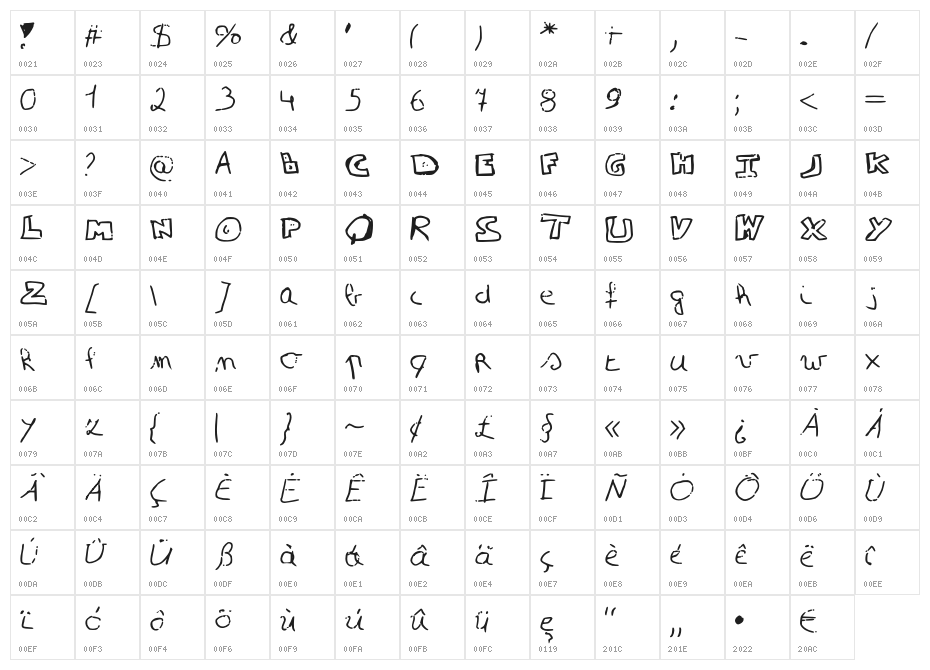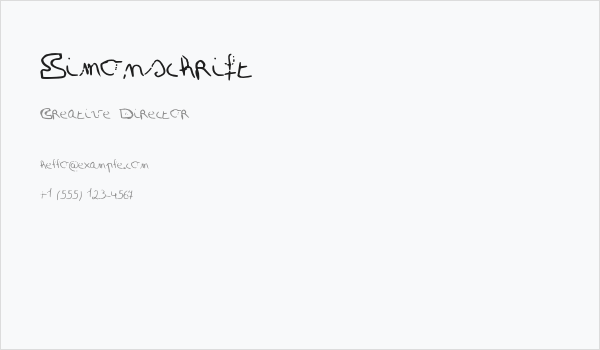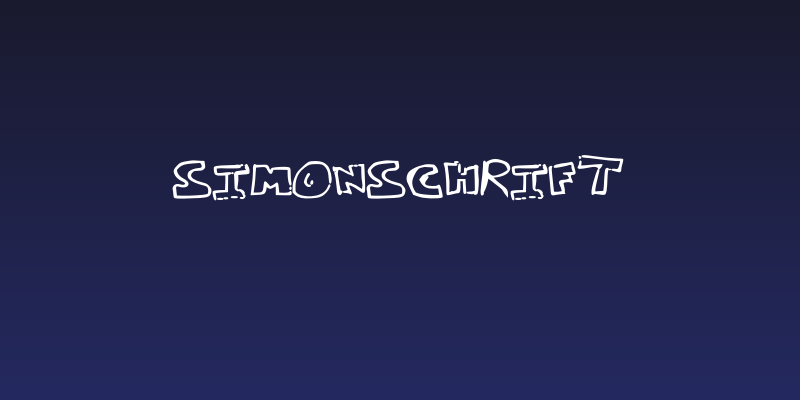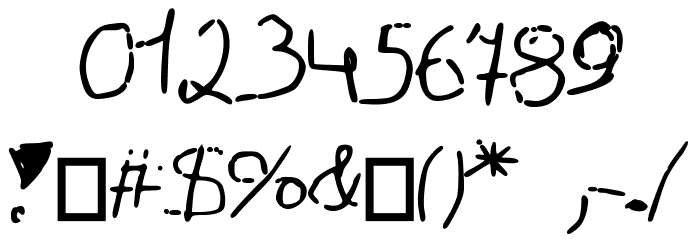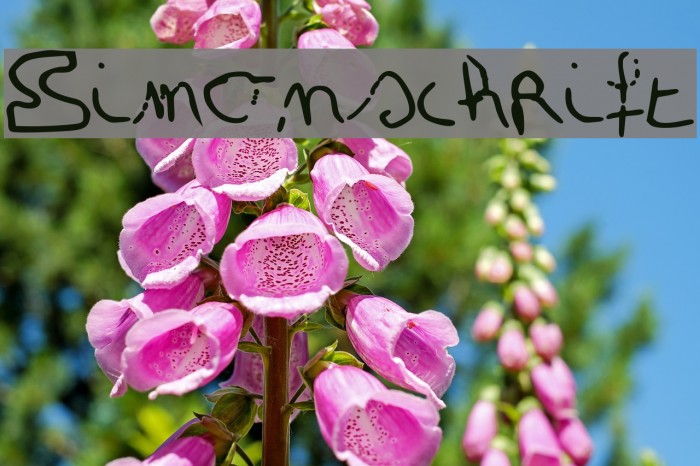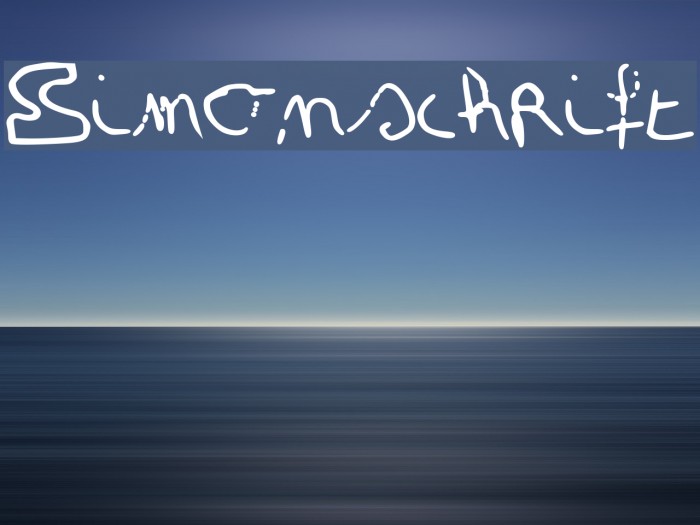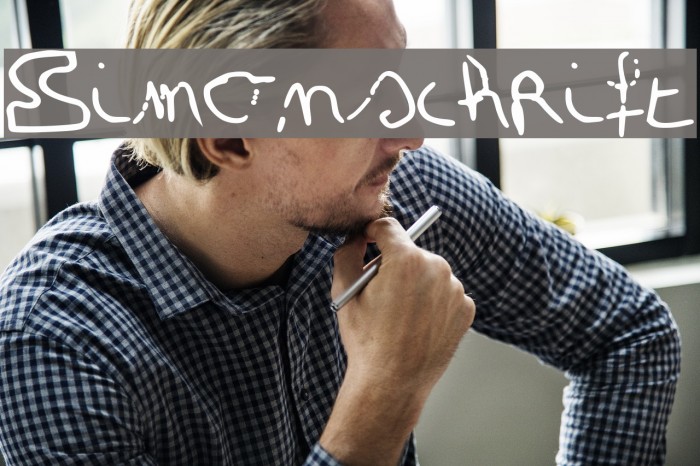
Simonschrift Font
Simonschrift Description
This font exhibits a unique and artistic style, characterized by its hand-drawn appearance and irregular shapes. The uppercase letters are bold and have a playful, almost cartoonish quality, with varying line thicknesses and quirky angles. The lowercase letters maintain this whimsical style, with some letters featuring exaggerated loops and curves. Numbers and special characters follow the same artistic theme, adding to the font's overall charm. The font's uneven strokes and organic feel make it stand out, offering a creative and informal vibe.
| Overall Style | Artistic, Playful |
| Proposed Projects | Ideal for creative projects such as children's books, comic strips, playful branding, and artistic posters. |